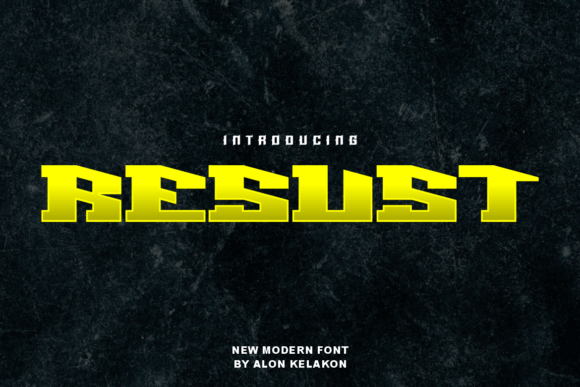
Prepare to be captivated by Resust, the display font that will ignite your creativity and elevate your designs to unparalleled heights. This modern masterpiece is meticulously crafted to empower you with the perfect font for any occasion.
Resust's captivating curves and sharp angles dance harmoniously, creating a visual symphony that will leave an unforgettable impression. Its versatility knows no bounds, making it an ideal choice for a wide range of projects, from captivating headlines to stunning logos.
But what truly sets Resust apart is its unwavering commitment to excellence. Its carefully balanced strokes and precise letterforms ensure readability and impact, guaranteeing that your message will be conveyed with the utmost clarity and style.
Indulge in the beauty of Resust and witness the transformation of your designs. Each character is a work of art, intricately designed to evoke emotions and inspire imagination. Embrace the limitless possibilities of this captivating font and unleash the true potential of your creative vision.
Whether you're crafting a heartfelt invitation, designing an eye-catching website, or simply seeking to add a touch of elegance to your social media posts, Resust is the font that will elevate your creations to new heights.
Experience the allure of Resust today and let your creativity soar. Its versatility, readability, and timeless beauty will captivate your audience and leave a lasting impression.